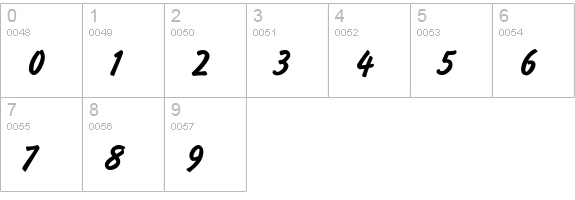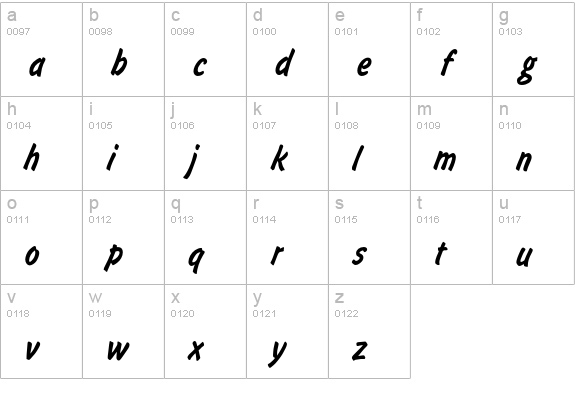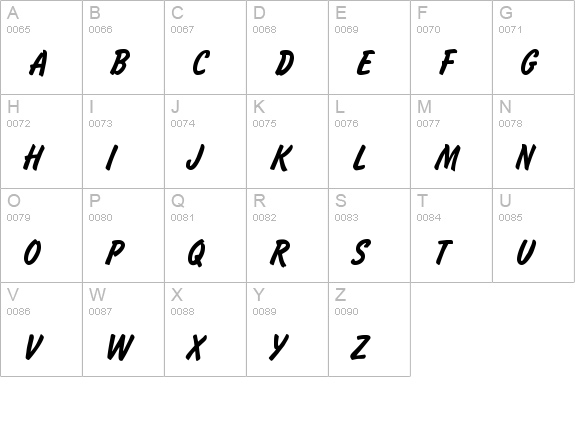
Flash Font Details
Introducing Flash font, a sleek and modern typeface that exudes energy and dynamism. With its sharp lines and bold appearance, Flash font is the perfect choice for projects that require a bold statement. Whether you are designing a logo, poster, or website, Flash font will make your text pop and grab the viewer's attention. Best of all, Flash font is completely free to download at FontsMarket.com. This means you can add this striking font to your design arsenal without breaking the bank. Don't miss out on the opportunity to elevate your designs with the eye-catching Flash font - download it today and let your creativity shine!